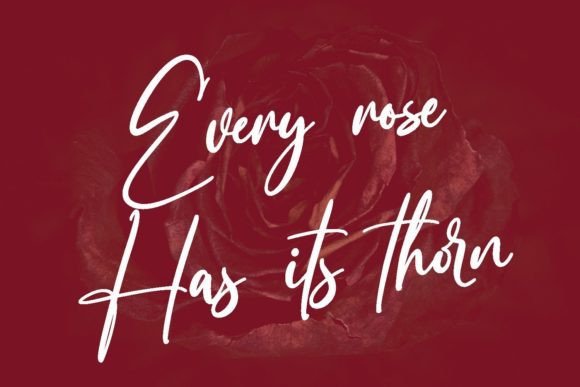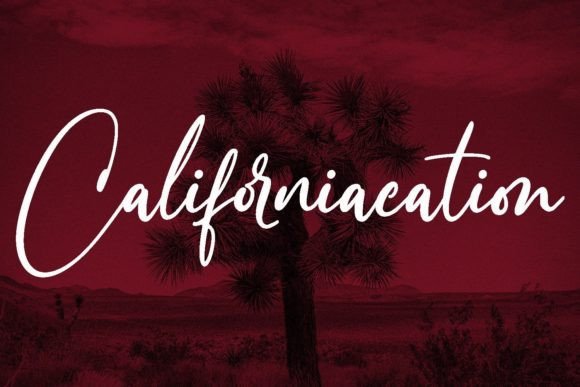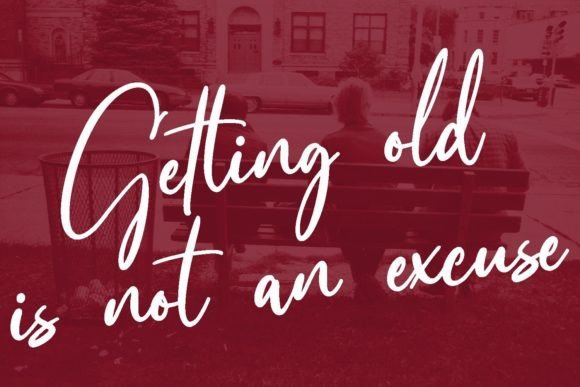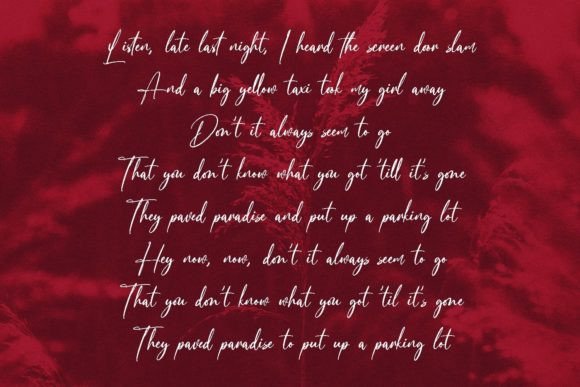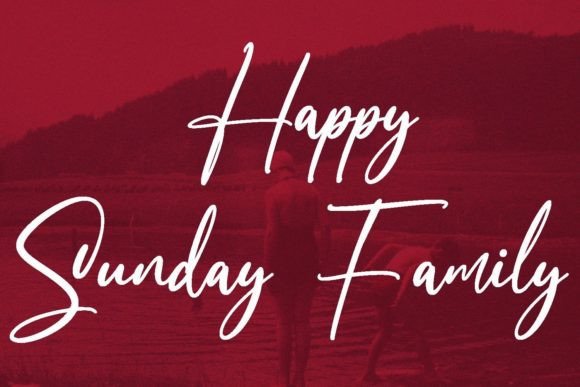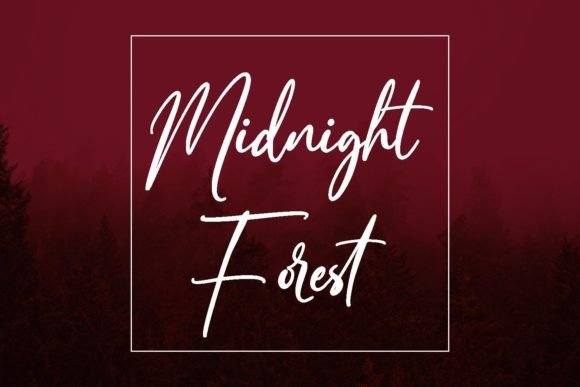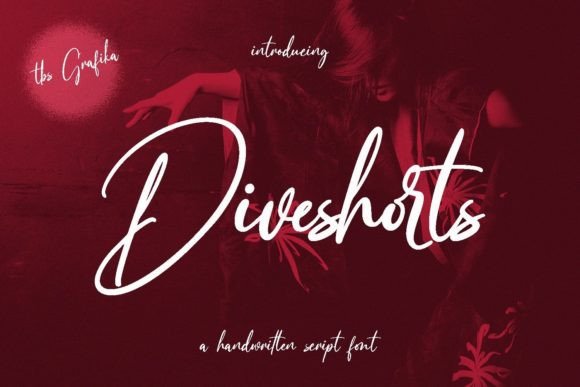
Diveshorts Font: Elevate Your Designs with Elegance and Sophistication
In the world of typography, fonts play a crucial role in bringing creative ideas to life. For designers and crafters, finding the perfect font can be a daunting task, especially when looking for something that exudes elegance and sophistication. This is where Diveshorts Font comes in – a stunning fancy signature script font that is sure to elevate your designs to new heights.
The Beauty of Diveshorts Font
Diveshorts is a beautifully crafted font that boasts well-balanced characters, making it an ideal choice for a wide range of designs. Its unique and flowing script style is perfect for adding a touch of luxury and glamour to any project. Whether you’re working on a logo, branding materials, or marketing collateral, Diveshorts Font is sure to make your designs stand out from the crowd.
Key Features of Diveshorts Font
- Beautiful and well-balanced characters: Each character in the Diveshorts Font is carefully crafted to ensure that it is balanced and visually appealing.
- Fancy signature script style: The font’s script style is perfect for adding a touch of elegance and sophistication to your designs.
- Versatile: Diveshorts Font can be used for a wide range of designs, from logos and branding materials to marketing collateral and more.
- Easy to read: Despite its ornate style, Diveshorts Font is easy to read, making it perfect for use in body text and headlines.
How to Use Diveshorts Font in Your Designs
Adding Diveshorts Font to your designs is easy. Here are a few tips to get you started:
- Use it as a headline font: Diveshorts Font is perfect for use in headlines, where its elegant and sophisticated style can really shine.
- Add it to your logo: Use Diveshorts Font to create a stunning logo that reflects your brand’s personality and style.
- Mix it with other fonts: Diveshorts Font pairs well with a variety of other fonts, making it easy to create visually appealing combinations.
Why Designers and Crafters Love Diveshorts Font
Designers and crafters love Diveshorts Font for many reasons. Here are a few:
- Unique and distinctive style: Diveshorts Font has a unique and distinctive style that sets it apart from other fonts.
- Elegant and sophisticated: The font’s elegant and sophisticated style makes it perfect for use in high-end designs.
- Easy to use: Diveshorts Font is easy to use and can be easily integrated into a variety of designs.
In conclusion, Diveshorts Font is a stunning fancy signature script font that is sure to elevate your designs to new heights. Its beautiful and well-balanced characters, elegant and sophisticated style, and versatility make it an ideal choice for designers and crafters. Whether you’re working on a logo, branding materials, or marketing collateral, Diveshorts Font is sure to make your designs stand out from the crowd. So why wait? Add Diveshorts Font to your design arsenal today and start creating stunning designs that leave a lasting impression.